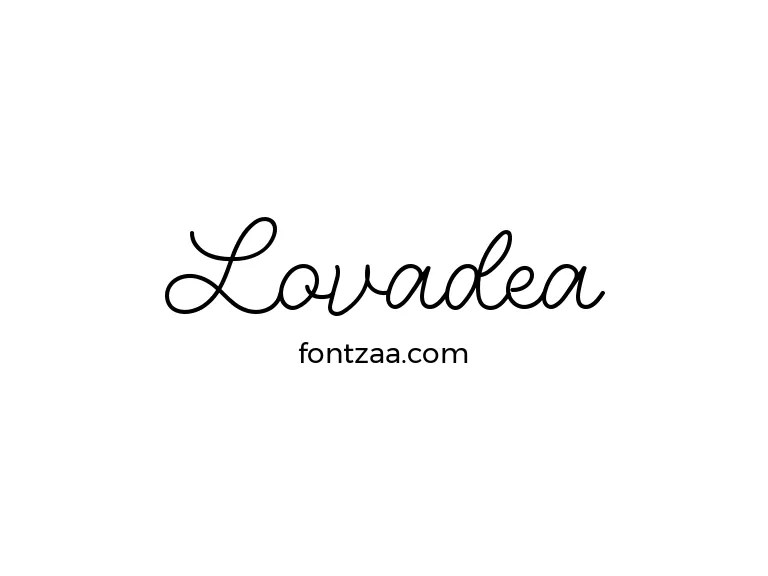
Lovadea Font is a elegant typeface created for designers who want typography with a distinctive visual identity. Designers exploring a elegant typeface can use Lovadea Font to add a more recognizable visual voice to creative display work. Using generous space around the lettering can help the details of the typeface remain visible instead of competing with other elements. The typeface can change considerably depending on tracking, scale, alignment, background and surrounding imagery. The font can work as the primary visual element in a minimal layout or as part of a more detailed composition. Designers may explore it across invitations, wedding stationery, signatures, quotes and elegant branding, depending on the tone and requirements of the project. For layouts containing longer information, pairing it with a simpler supporting typeface can improve readability and hierarchy. Designers should evaluate the typeface inside the real project because a standalone preview cannot show every possible visual combination. According to the available font information, the typeface is associated with AMIN MARYONO 2020. The available licensing label is Free for personal use, but redistribution and commercial permissions should always be confirmed from the original source. A few quick layout variations can help determine where the font creates the strongest visual result.
Lovadea Font stands out through its individual shapes and can become an important visual element in headlines, branding and promotional layouts. Its letter shapes become especially noticeable at larger sizes, where spacing and proportions can be explored more clearly. Different color combinations can make the same font feel subtle, energetic, premium or highly decorative. Testing several arrangements before choosing the final version can reveal which characteristics of the typeface work best. The font can be considered for projects such as invitations, wedding stationery, signatures, quotes and elegant branding. For layouts containing longer information, pairing it with a simpler supporting typeface can improve readability and hierarchy. A clean serif or sans serif companion can handle smaller text while this font remains focused on headlines and key messages. The available source information lists AMIN MARYONO 2020 as the designer or publisher. Current license information is shown as Free for personal use; checking the original documentation is recommended before client or commercial work. Its final appearance will depend heavily on the surrounding colors, imagery, spacing and supporting typography.
With its distinctive letterforms, Lovadea Font can introduce a elegant character into digital and print projects. The font can work as the primary visual element in a minimal layout or as part of a more detailed composition. Using generous space around the lettering can help the details of the typeface remain visible instead of competing with other elements. Its letter shapes become especially noticeable at larger sizes, where spacing and proportions can be explored more clearly. Possible applications include invitations, wedding stationery, signatures, quotes and elegant branding. A clean serif or sans serif companion can handle smaller text while this font remains focused on headlines and key messages. Keeping secondary typography simple often allows the distinctive qualities of the main font to remain more visible. The available source information lists AMIN MARYONO 2020 as the designer or publisher. License details are currently listed as Free for personal use. Users should verify the supplied documentation before using the font in products or paid projects. Experimenting directly in the intended design is usually the best way to judge whether the typeface suits the project.
Lovadea Font Family
Designers can use the Lovadea Font Family in several ways by varying scale, alignment, background treatment and supporting typography. Lovadea Font brings a elegant personality to typography and gives designers a flexible starting point for font-family exploration. The font can work as the primary visual element in a minimal layout or as part of a more detailed composition. Testing several arrangements before choosing the final version can reveal which characteristics of the typeface work best. Using generous space around the lettering can help the details of the typeface remain visible instead of competing with other elements. Its display-focused appearance makes it worth testing in invitations, wedding stationery, signatures, quotes and elegant branding. A clean serif or sans serif companion can handle smaller text while this font remains focused on headlines and key messages. Print and digital layouts may require different sizing and spacing, so testing the actual output dimensions is recommended. The designer or publisher information available for this typeface is AMIN MARYONO 2020. Current license information is shown as Free for personal use; checking the original documentation is recommended before client or commercial work. The most effective treatment will vary by project, so designers should compare several versions before finalizing the artwork.
| Designer | AMIN MARYONO 2020 |
Branding Ideas With Lovadea Font
With its distinctive letterforms, Lovadea Font can introduce a elegant character into logos, wordmarks and visual identity systems. The font can work as the primary visual element in a minimal layout or as part of a more detailed composition. Testing several arrangements before choosing the final version can reveal which characteristics of the typeface work best. The typeface can change considerably depending on tracking, scale, alignment, background and surrounding imagery. Its display-focused appearance makes it worth testing in invitations, wedding stationery, signatures, quotes and elegant branding. Keeping secondary typography simple often allows the distinctive qualities of the main font to remain more visible. Print and digital layouts may require different sizing and spacing, so testing the actual output dimensions is recommended. Source metadata currently associates the font with AMIN MARYONO 2020. The available licensing label is Free for personal use, but redistribution and commercial permissions should always be confirmed from the original source. The most effective treatment will vary by project, so designers should compare several versions before finalizing the artwork.
Social Media Ideas With Lovadea Font
Lovadea Font brings a elegant personality to typography and gives designers a flexible starting point for posters, campaigns, thumbnails and promotional content. The font can work as the primary visual element in a minimal layout or as part of a more detailed composition. The typeface can change considerably depending on tracking, scale, alignment, background and surrounding imagery. Its letter shapes become especially noticeable at larger sizes, where spacing and proportions can be explored more clearly. Creative uses may range from invitations, wedding stationery, signatures, quotes and elegant branding, with different results depending on scale and layout. Designers should evaluate the typeface inside the real project because a standalone preview cannot show every possible visual combination. A clean serif or sans serif companion can handle smaller text while this font remains focused on headlines and key messages. The available source information lists AMIN MARYONO 2020 as the designer or publisher. License details are currently listed as Free for personal use. Users should verify the supplied documentation before using the font in products or paid projects. Its final appearance will depend heavily on the surrounding colors, imagery, spacing and supporting typography.
Design Tips for Lovadea Font
Designers exploring a elegant typeface can use Lovadea Font to add a more recognizable visual voice to spacing, contrast, scale and layout decisions. Its letter shapes become especially noticeable at larger sizes, where spacing and proportions can be explored more clearly. The font can work as the primary visual element in a minimal layout or as part of a more detailed composition. Using generous space around the lettering can help the details of the typeface remain visible instead of competing with other elements. Possible applications include invitations, wedding stationery, signatures, quotes and elegant branding. For layouts containing longer information, pairing it with a simpler supporting typeface can improve readability and hierarchy. A clean serif or sans serif companion can handle smaller text while this font remains focused on headlines and key messages. The designer or publisher information available for this typeface is AMIN MARYONO 2020. The available licensing label is Free for personal use, but redistribution and commercial permissions should always be confirmed from the original source. A few quick layout variations can help determine where the font creates the strongest visual result.